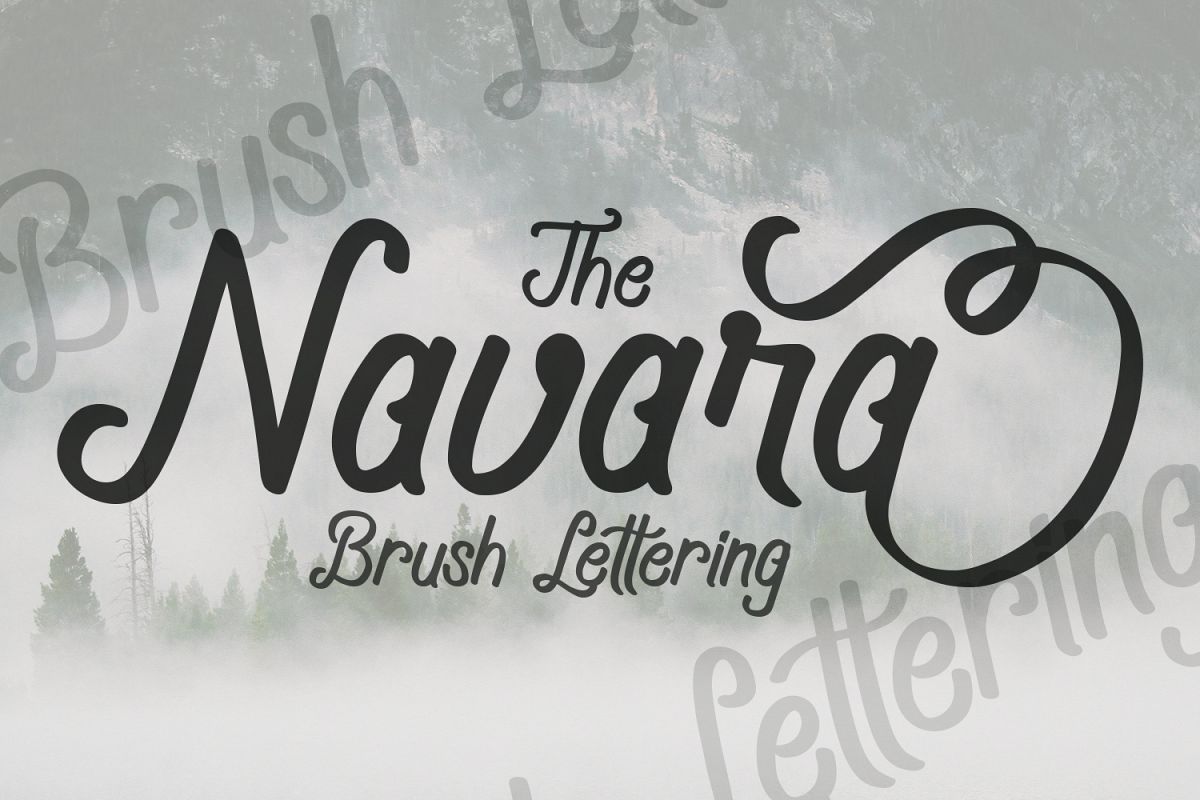
Navara Brush Font
Introducing Navara! Elegant and stylish brush font with unconnected style, inspired from handwritten font. Navara is great for branding design, heading, headline, tittle, or simply design with stylish text overlay to any background image.
- uppercase & lowercase letters
- numbers & punctuation
- alternate glyph
- multi language support